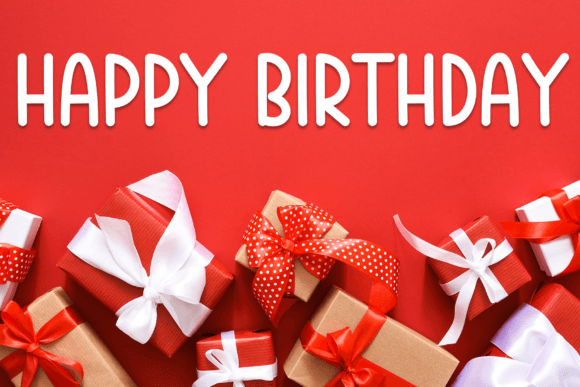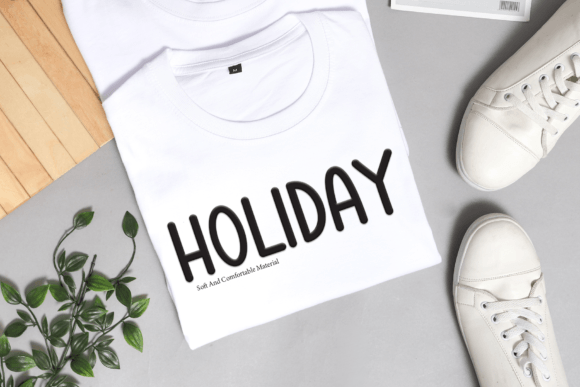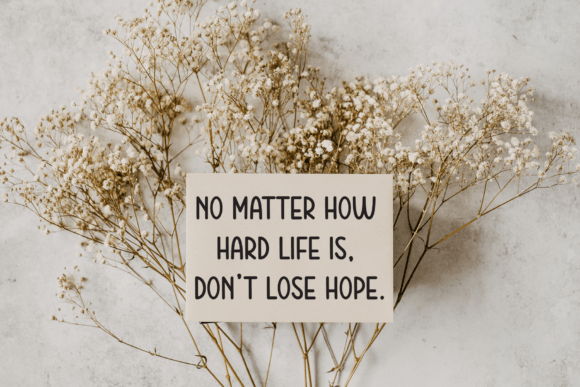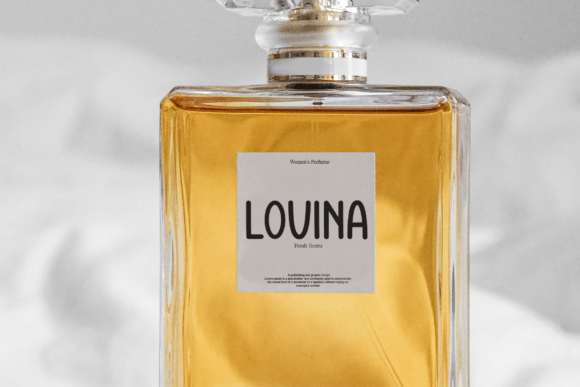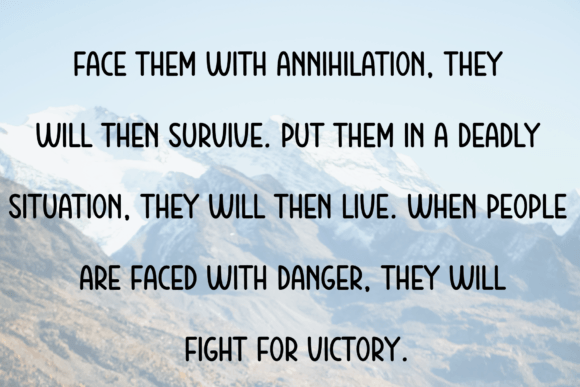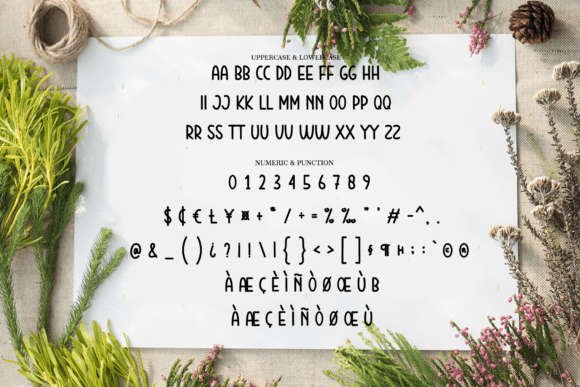
Introduction to Creative Outside Font
Creative Outside is a sweet and friendly handwritten font.
Fresh and cute, this font is ideal for writing wedding invitations, cards, or any other design that might need a fun touch .